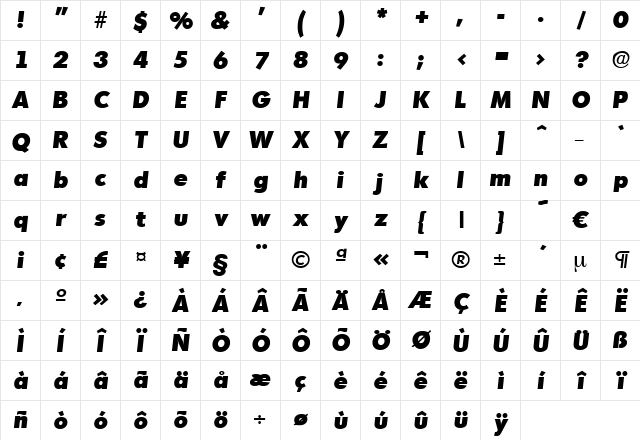
Montreal-HeavyIta Regular Free Font
Montreal-HeavyIta Regular
Montreal-HeavyIta Family
Montreal-HeavyIta Regular
Design Context for Montreal-HeavyIta
Montreal-HeavyIta is a composed and adaptable typeface that performs quietly and consistently across a wide range of design contexts.